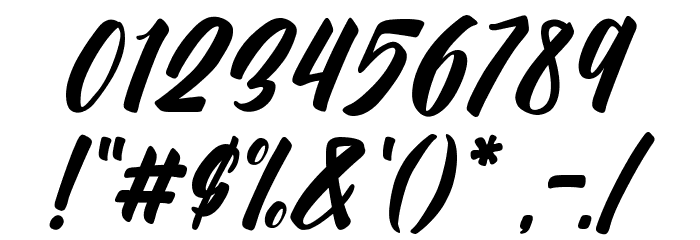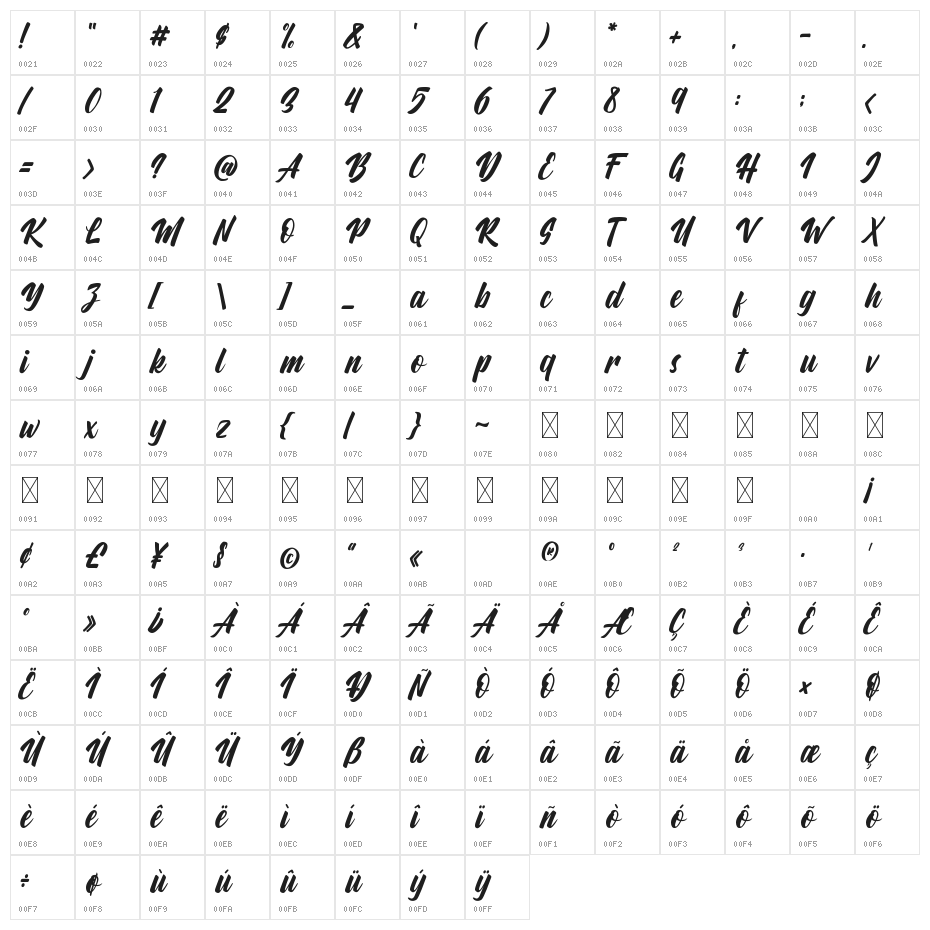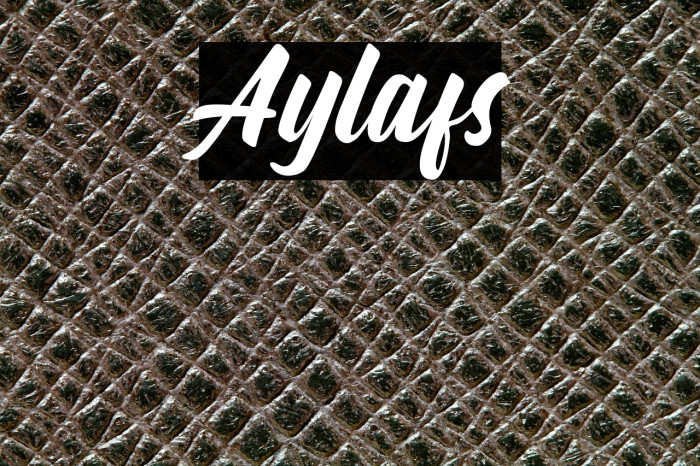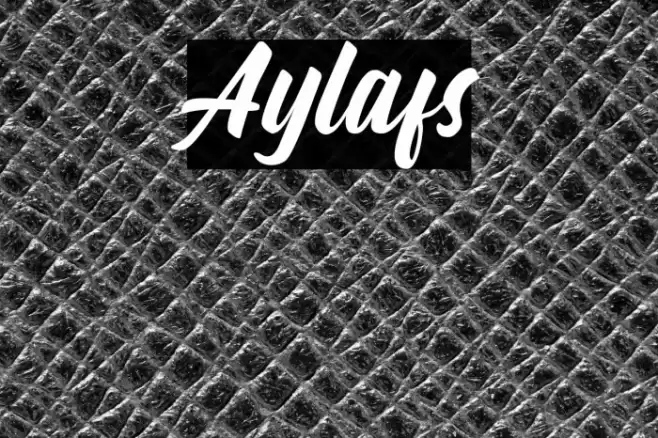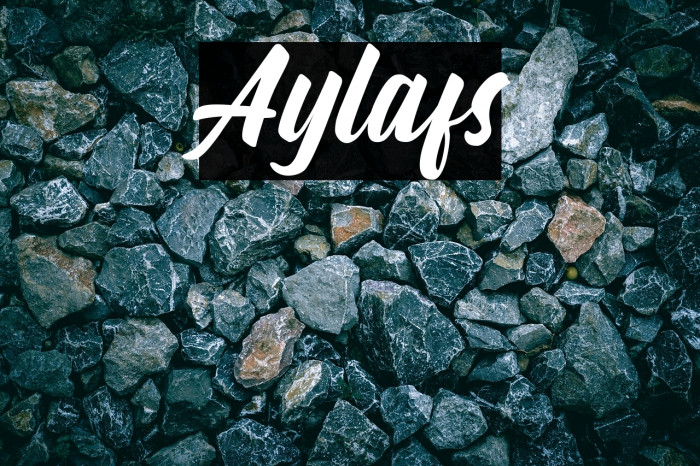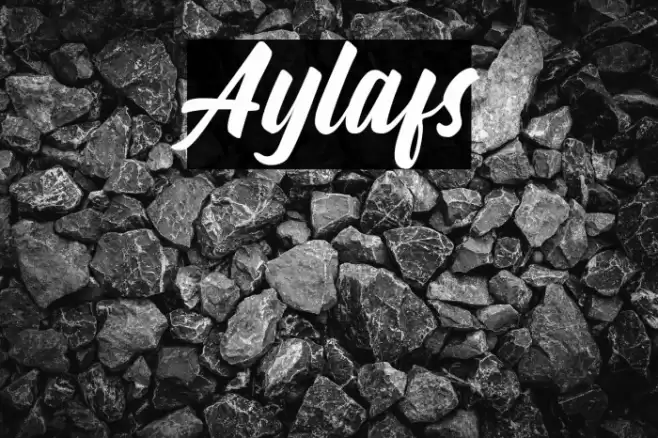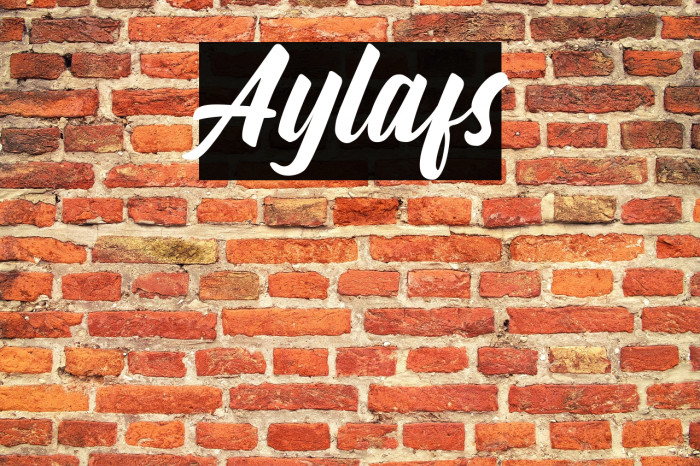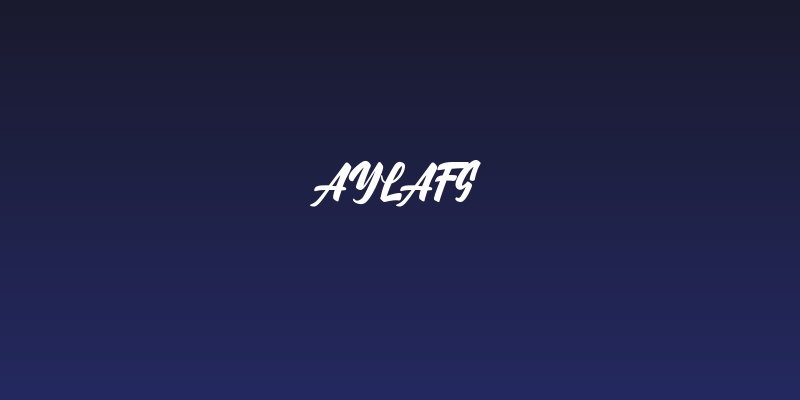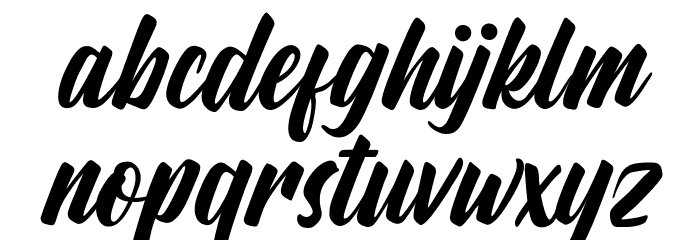
Aylafs Font
Aylafs Description
This font features a bold, flowing script style that exudes a sense of elegance and dynamism. The characters are connected, creating a seamless and fluid appearance. The strokes are thick and consistent, providing a strong visual impact. The uppercase letters are slightly more ornate, with flourishes that add a touch of sophistication. The lowercase letters maintain a more uniform and rounded shape, ensuring readability. Numbers and special characters are designed to match the overall style, with a playful yet refined look. This font is ideal for projects that require a personal touch or a sense of movement and grace.
| Overall Style | Elegant, Dynamic |